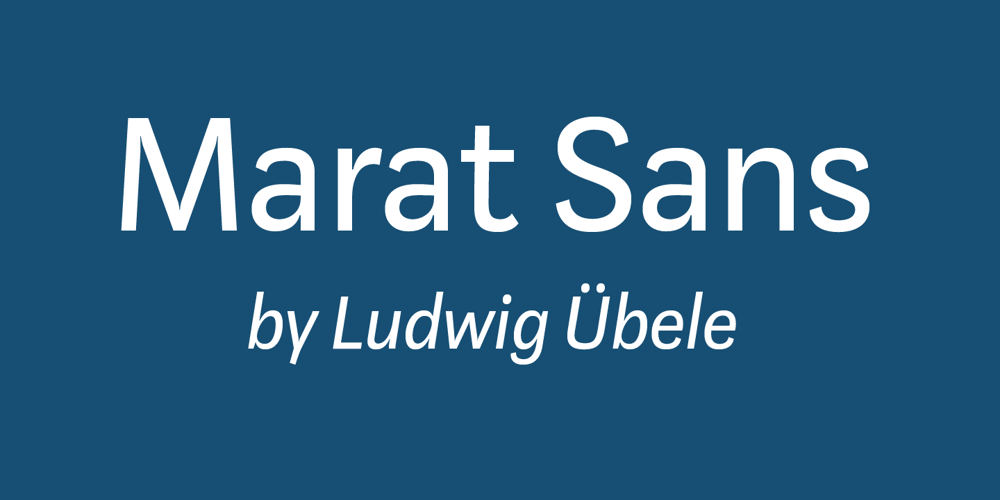
Marat Sans Font Family was designed by Ludwig Übele and published by Ludwig Type. Marat Sans contains 28 styles and family package options. Marat Sans is a clean and lively sans serif typeface designed by Ludwig Übele. It is characterized by excellent legibility and suits a wide range of typography. The entire family contains 27 styles & weights and includes many OpenType features: various numerals, alternate glyphs, fractions, superiors and inferiors, language features, arrows, case sensitive forms and many more. Marat Sans is the perfect companion for Marat, a soft and elegant serif typeface.